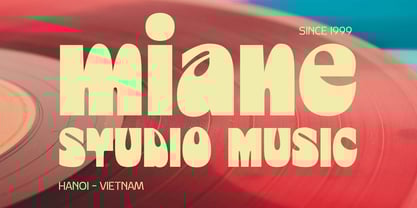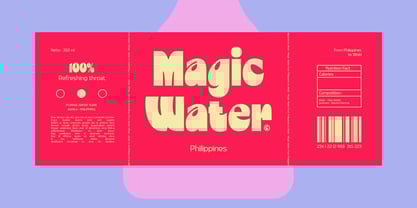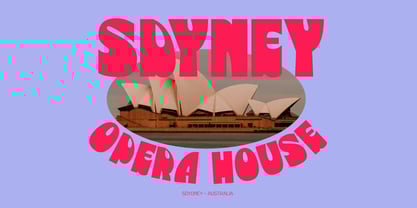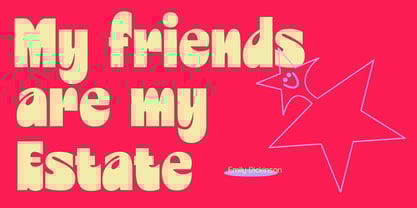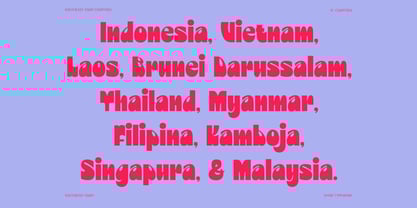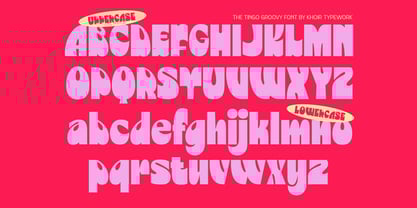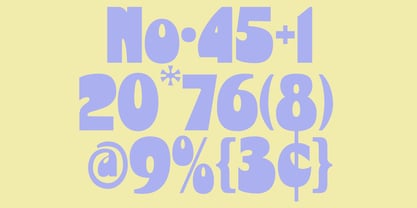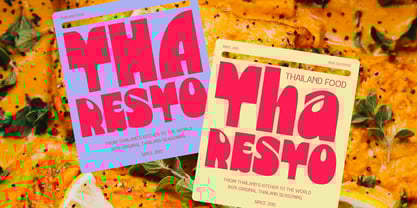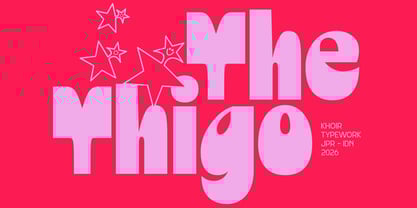
Thigo
La familia tipográfica Thigo fue diseñada por Muhammad Romzul Khoir y publicada por Khoir. Thigo contiene 1 estilos.
This iconic and fun bold sans font, with its soft, rounded letterforms, evokes a playful 60s feel. Its bold structure and gentle curves create a cheerful and warm feel, making it perfect for branding, logos, packaging, posters, social media, modern retro designs, and other fun designs. Thingo Ligature 75+ Language So what are you waiting for? immediately purchase this font, feel free to comment, or send me my PM, Thank you for seeing